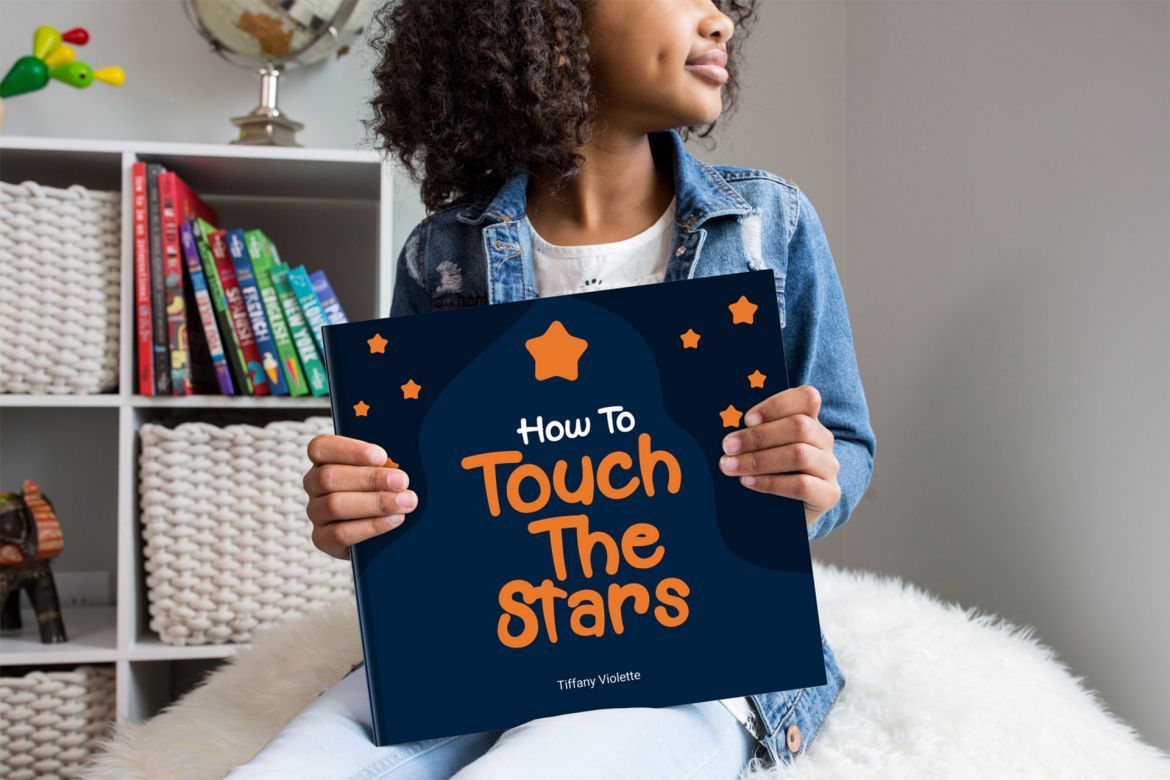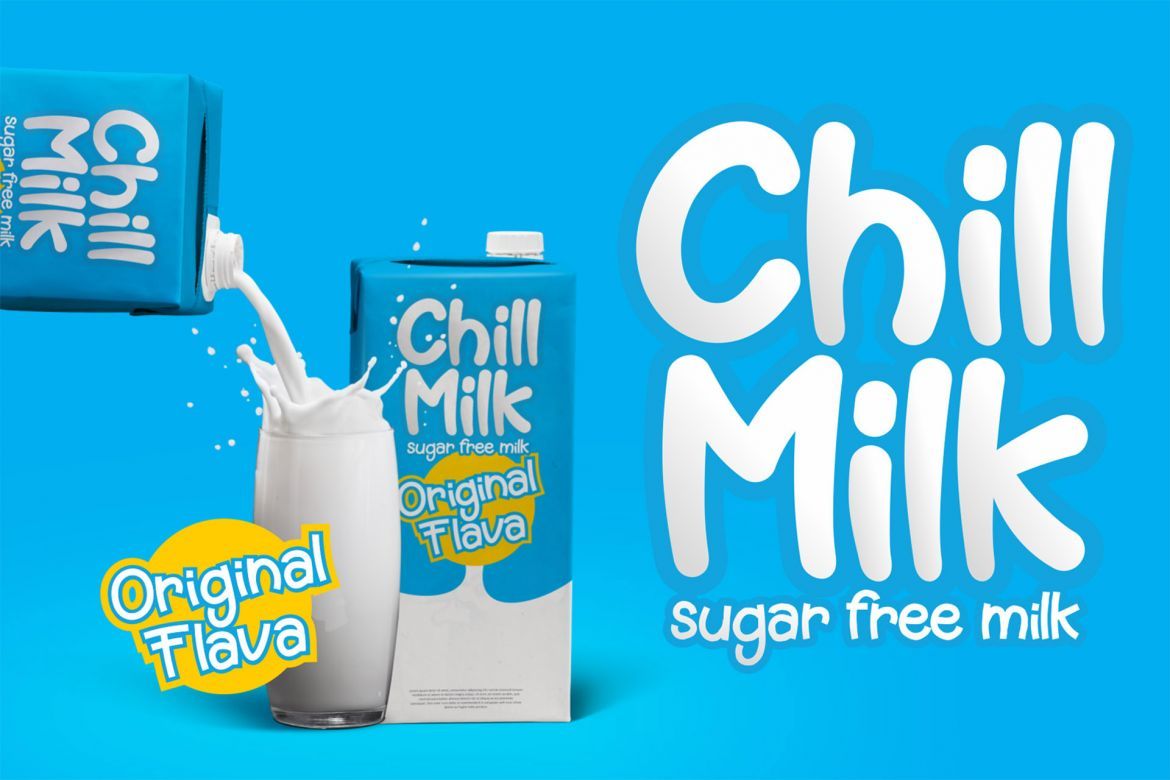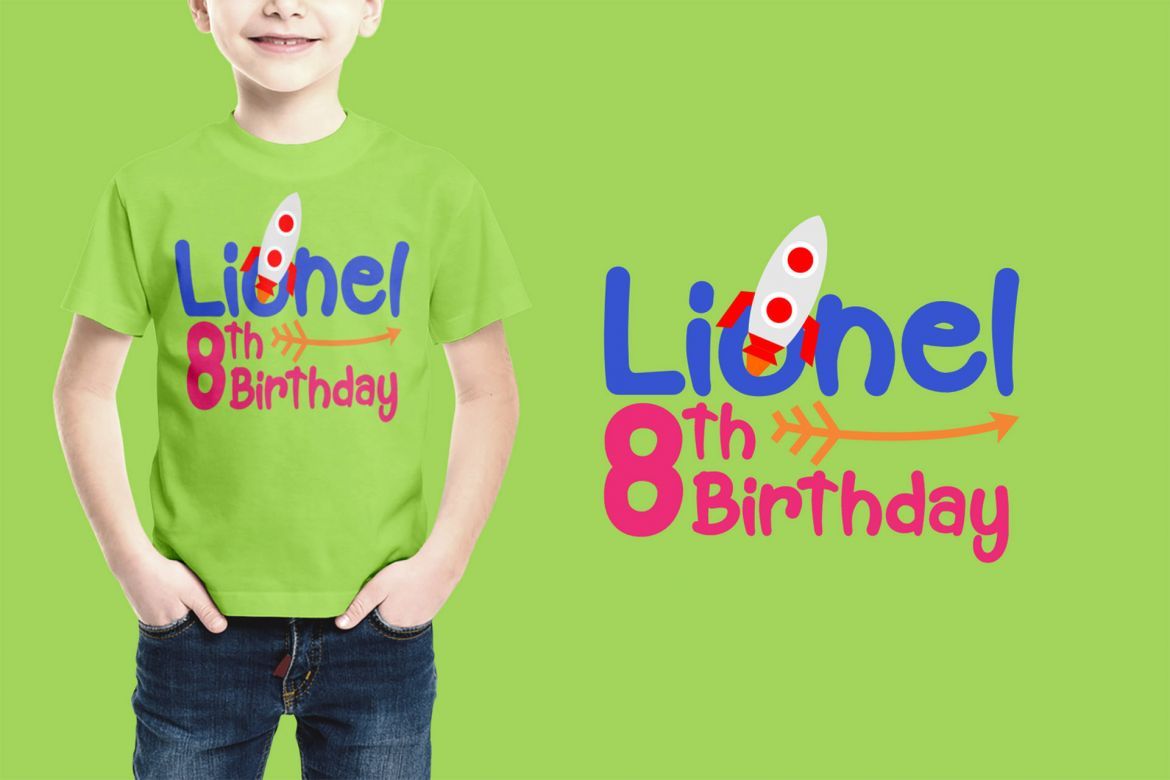
Muffin Cake Font
Muffin Cake is a suitable font when used for logos and product names. Especially the products related to the world of children
• this font is unique, the shape of the letters are fun and cheerful
• this font is very specific, especially for use on products related to the world of children